1. Introduction
Understanding Font Family Styles Typography plays a vital role in shaping how people perceive brands, websites, and products. One of the most essential elements of typography is the font family. Understanding different font family styles allows designers and creators to choose typefaces that express the right emotions, enhance readability, and strengthen brand identity.
In this article, we’ll explore what font families are, why they matter, and how you can choose the right style for your projects — with some excellent examples from Edric Studio.
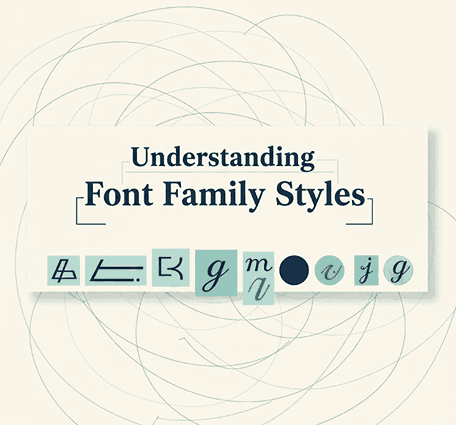
2. What Is an Understanding Font Family Styles?
An Understanding Font Family Styles is a collection of related fonts that share a consistent design style but differ in attributes such as weight, width, or slant. For example, a single family might include regular, bold, italic, and light versions.
Font families help designers maintain visual consistency while adding typographic variety. Instead of mixing random fonts, using one font family ensures harmony and coherence in both print and digital designs.
3. The Importance of Understanding Font Family Styles in Design
Font families do more than just make text look beautiful — they influence how audiences feel and interact with content. Some key benefits include:
- Brand Consistency: Using a unified font family keeps brand visuals cohesive across logos, packaging, and web designs.
- Readability and Accessibility: Choosing the right weight and spacing within a font family improves readability on different devices.
- Professionalism: A balanced typographic system helps maintain a clean and trustworthy design style.
In short, a strong understanding of font families is crucial for building brand recognition and enhancing user experience.
4. Major Understanding Font Family Styles Categories
Font families can generally be classified into the following main categories:
a. Serif Fonts
Serif fonts have small decorative strokes at the end of each letter. They evoke tradition, elegance, and reliability. Perfect for books, magazines, and professional branding.
Example: Aghnesta Font Trio — a timeless serif trio ideal for luxury brands and editorial design.
b. Sans Serif Fonts
Sans serif fonts remove the decorative elements, resulting in a clean and modern look. They are often used in digital interfaces for their clarity and simplicity.
Example: North Mount Trio Style — a versatile sans serif style great for websites and contemporary branding.
c. Script Fonts
Script fonts mimic handwriting or calligraphy, conveying elegance, creativity, and personality. These fonts are often used for invitations, personal branding, or artistic projects.
Example: Shaimaa Font Duo — a beautiful combination of script and serif fonts, perfect for boutique logos or romantic packaging.
d. Display Fonts
Display fonts are bold, attention-grabbing, and designed for headlines or posters. They can express strong personality and style.
Example: Gladwin Font Duo — a creative duo combining display and script elements for stunning visual appeal.
5. How to Choose the Right Font Family for Your Brand
Selecting the right font family isn’t just about aesthetics — it’s about communication. Here are a few practical tips:
- Understand Your Brand Personality: A serif font conveys professionalism, while a sans serif suggests modernity.
- Prioritize Readability: Always test your font on different screens and sizes.
- Maintain Consistency: Use one or two font families throughout your brand to ensure visual unity.
- Pair Thoughtfully: When combining fonts, choose complementary styles — for example, pairing a strong sans serif with a soft script.
A consistent and readable font system enhances the user’s journey while reinforcing your brand’s visual story.
6. Examples of Font Family Styles in Action
Let’s see how various font families can bring personality to a design:
- Aghnesta Font Trio: Ideal for magazines or luxury brand logos.
- Shaimaa Font Duo: Great for boutique branding and personal projects.
- North Mount Trio Style: Excellent for clean web layouts or corporate identities.
- Gladwin Font Duo: Perfect for creative campaigns and packaging.
Each of these fonts from Edric Studio demonstrates how thoughtful font family selection enhances design aesthetics and emotional impact.
7. Final Thoughts
Typography is more than a design element — it’s a communication tool. Understanding font family styles empowers designers to create more engaging, consistent, and meaningful visuals. Whether you’re developing a new brand, designing a website, or creating social media graphics, the right font family choice can transform your message into a memorable experience.